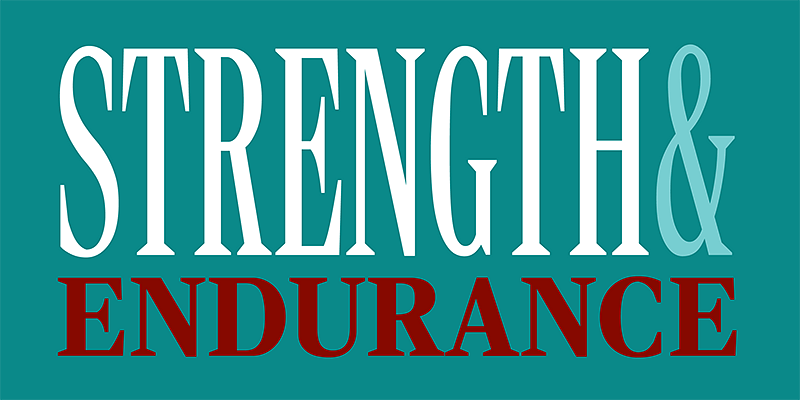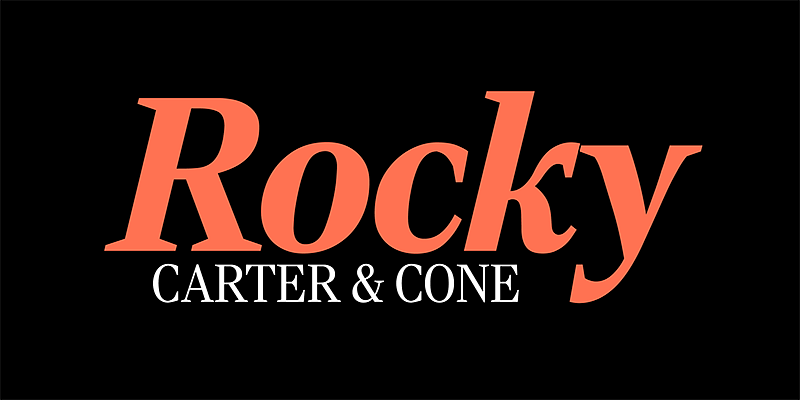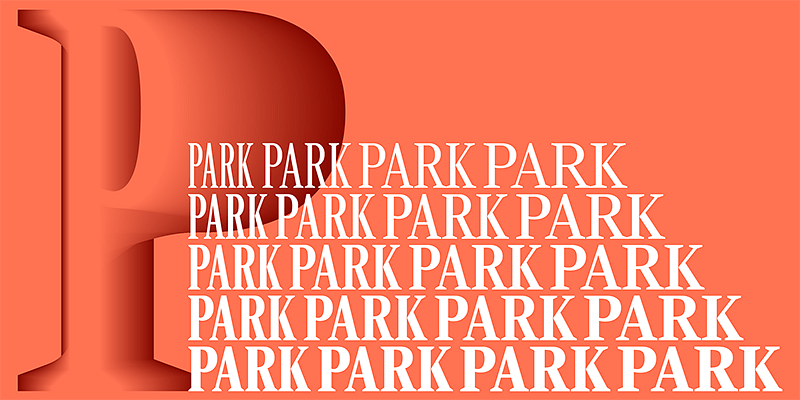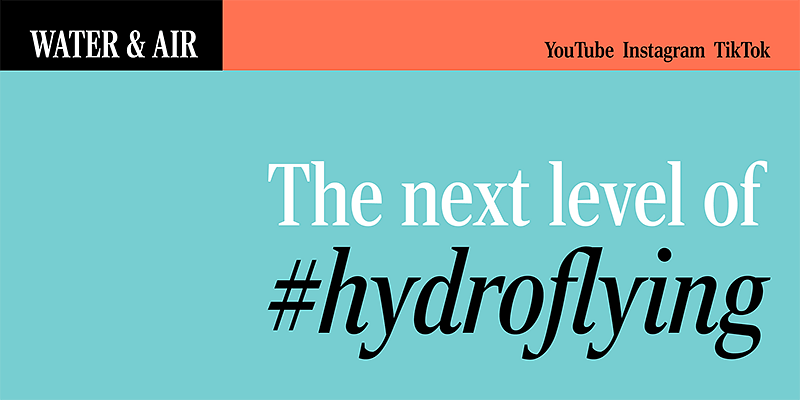
For years, Matthew Carter wondered why no Latins with Bodoni proportions had been developed, or there were no Bodonis with Latin serifs. He answered this by drawing Rocky Regular and Bold, with Italics, then expanded the family with the aid of Richard Lipton. Rocky can deftly add color to any book, magazine, or website needing typographic sparkle. Carter & Cone’s Rocky is available in 4 widths and 5 weights, plus italics, giving you 40 different ways to add visual punch to your projects.